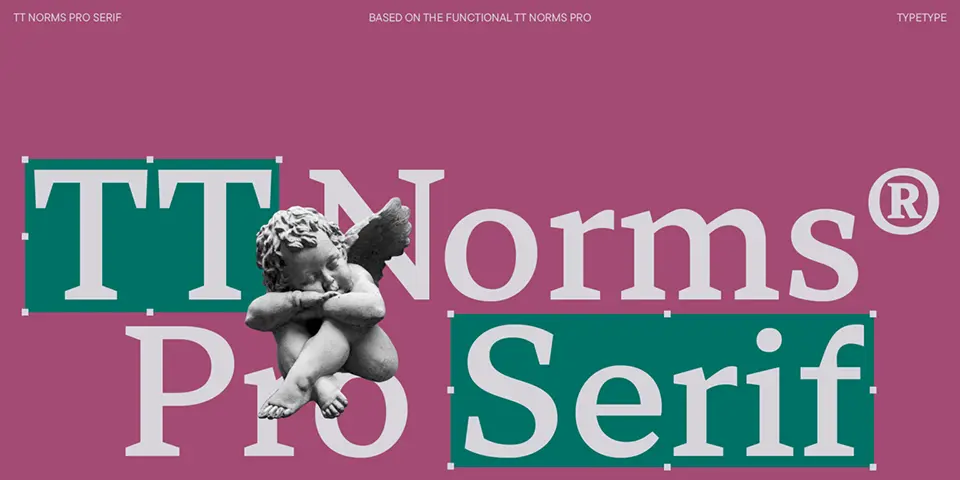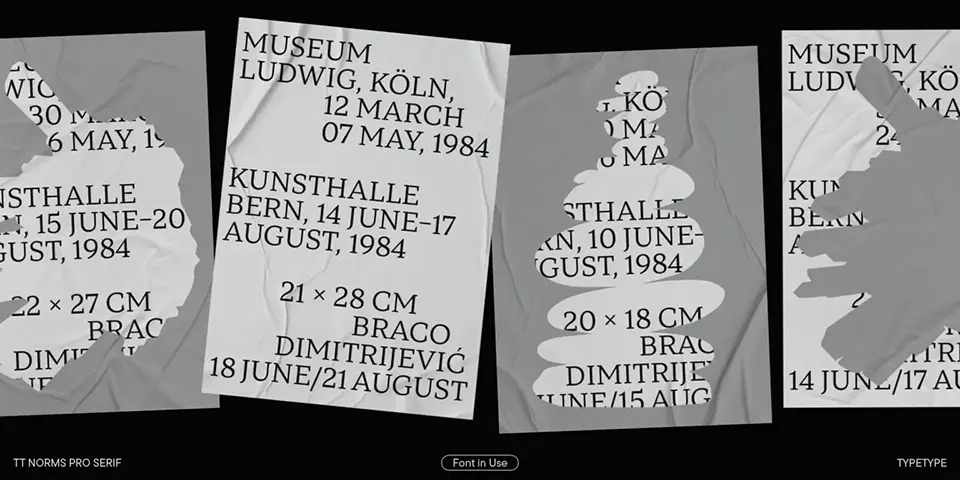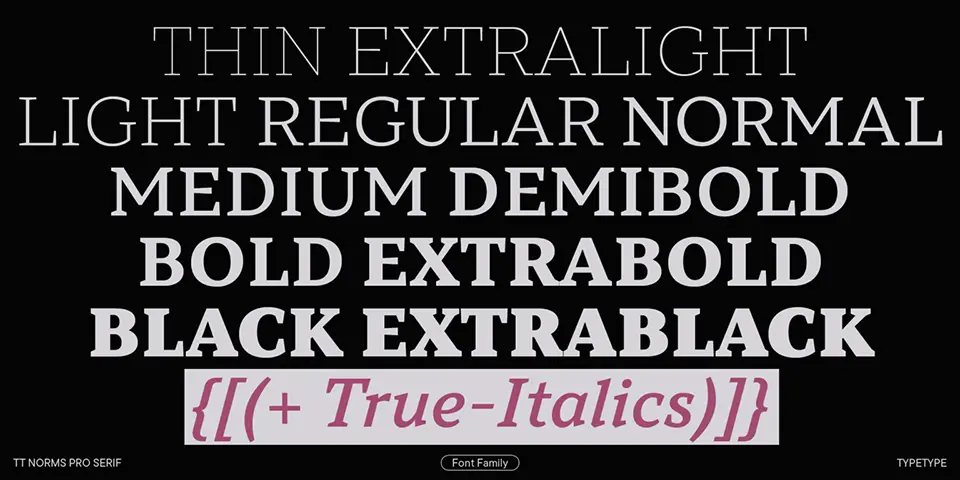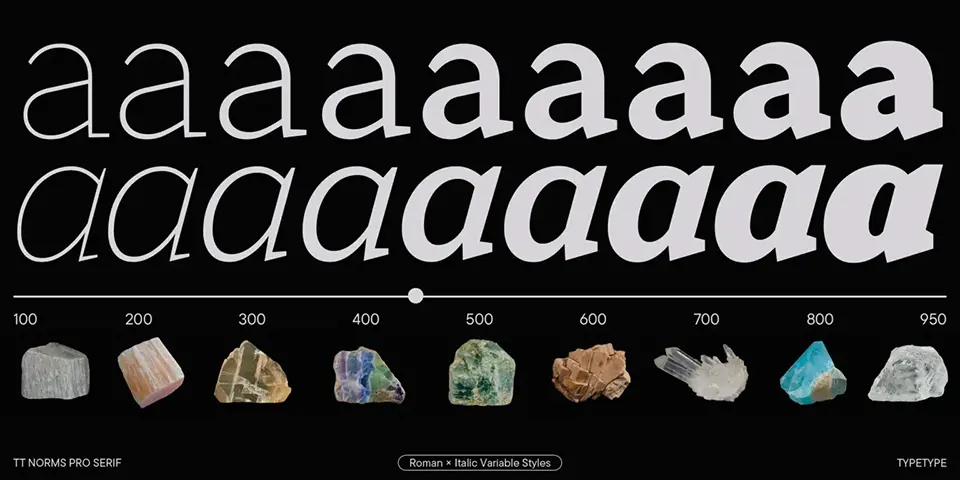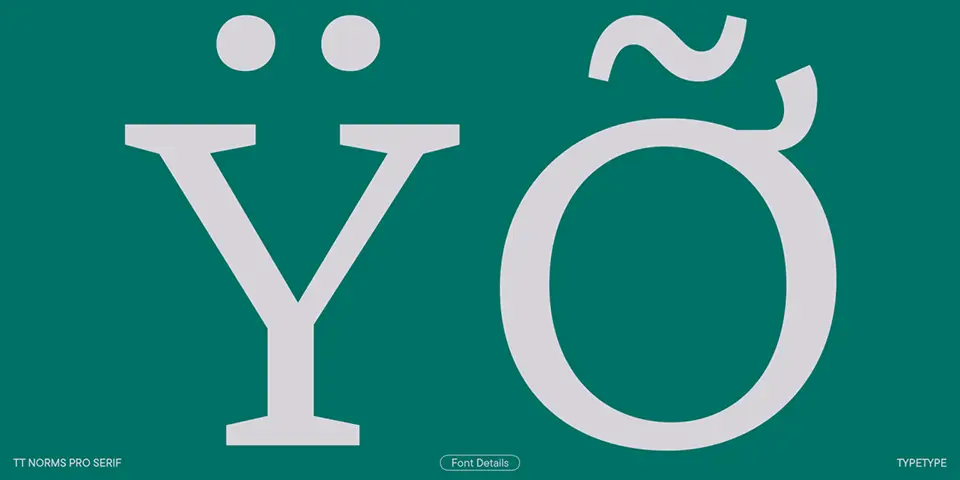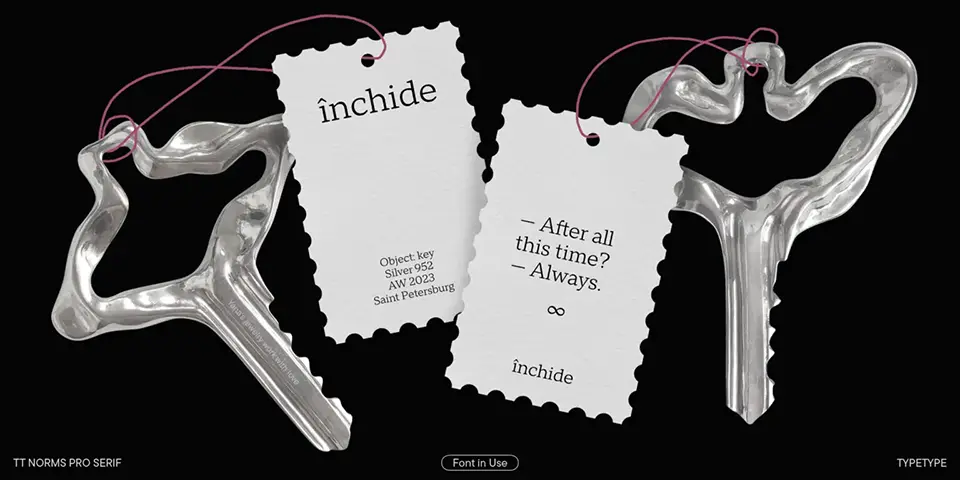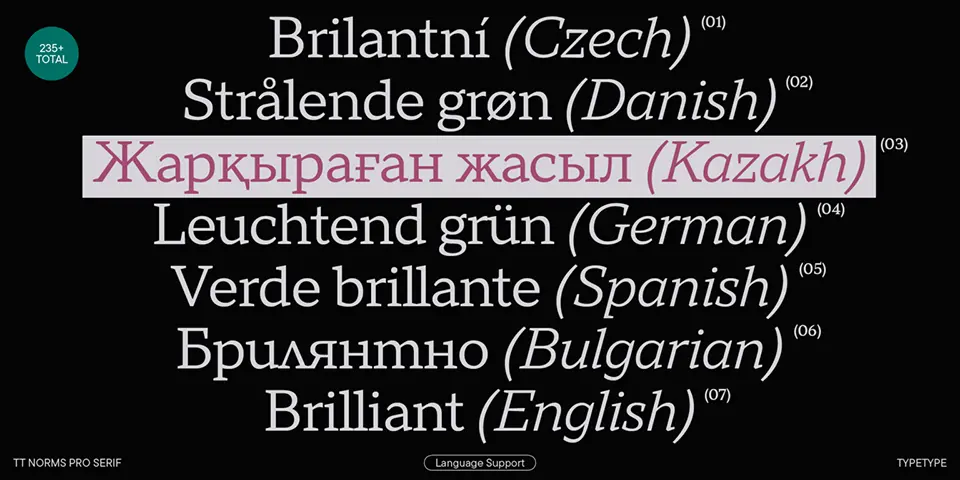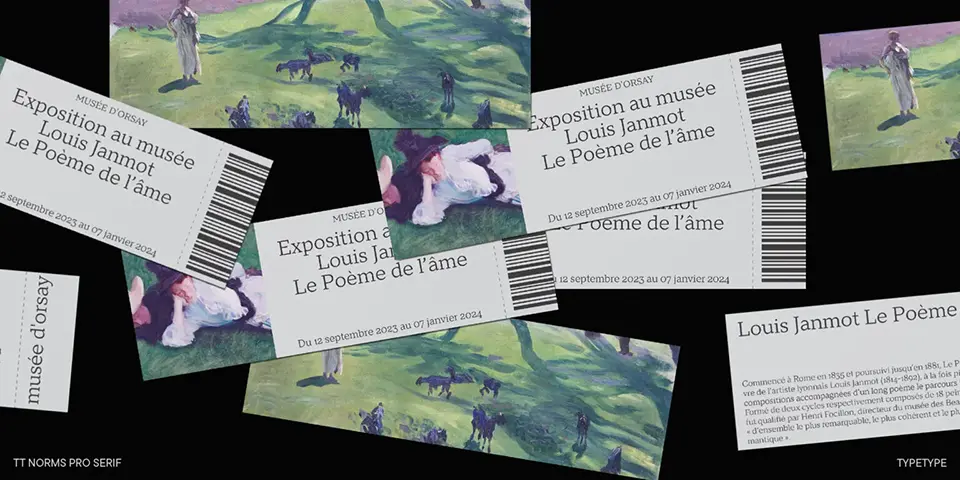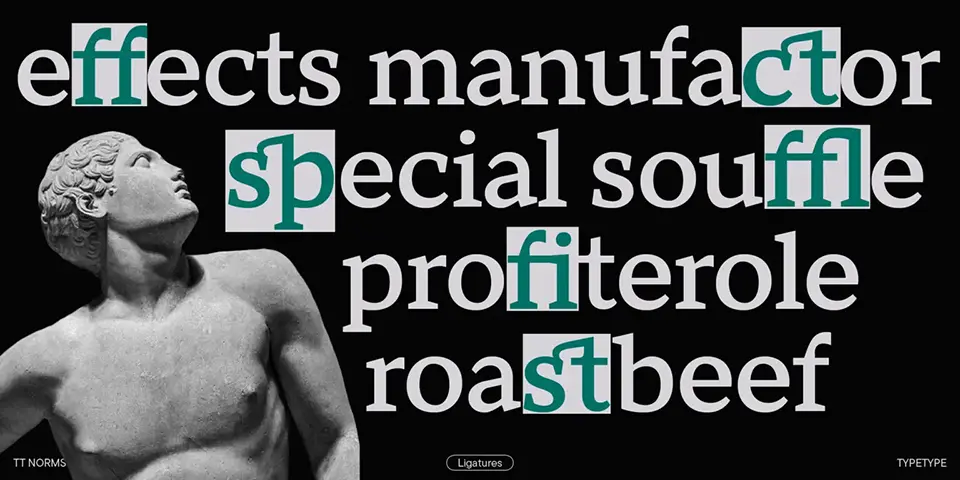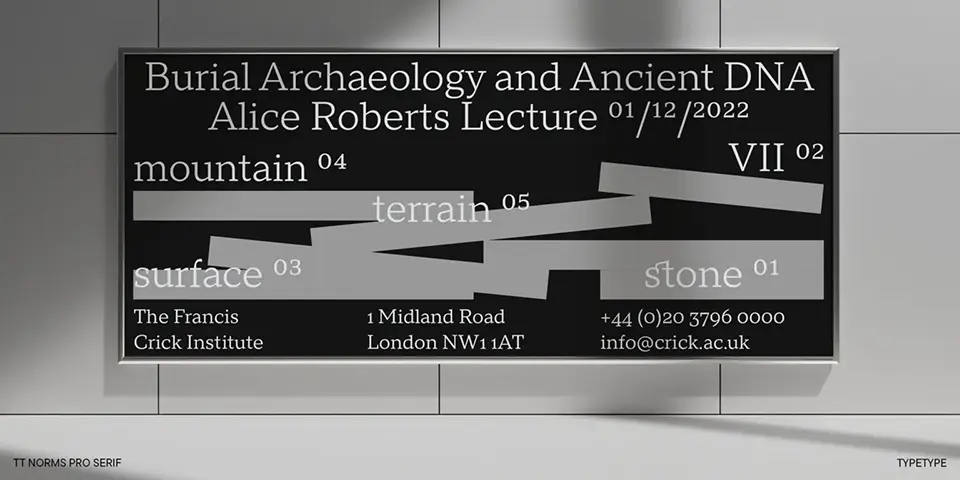
TT Norms Pro Serif Font Family
TT Norms Pro Serif Font Family is a versatile and elegant serif typeface designed as a companion to the popular TT Norms Pro sans serif family, while maintaining its own distinct identity. Characterized by subtle proportion dynamics, open letterforms, and low stroke contrast, it features brutal serifs that adapt in length based on font weight for balanced visual harmony. The family includes 24 styles—11 roman, 11 true italic (with handwritten-inspired lowercase forms), and 2 variable fonts—offering flexibility for both display and body text.
With 1,380 glyphs per style and support for 235+ languages, it excels in multilingual projects. Technical enhancements include 31 OpenType features for advanced typographic control. Its neutral yet refined aesthetic makes it ideal for editorial design, premium branding, digital interfaces, and cultural publications. The font’s high readability at small sizes and dynamic italics allow effective accentuation without compromising legibility, serving as both a standalone workhorse and harmonious pair with its sans serif counterpart.